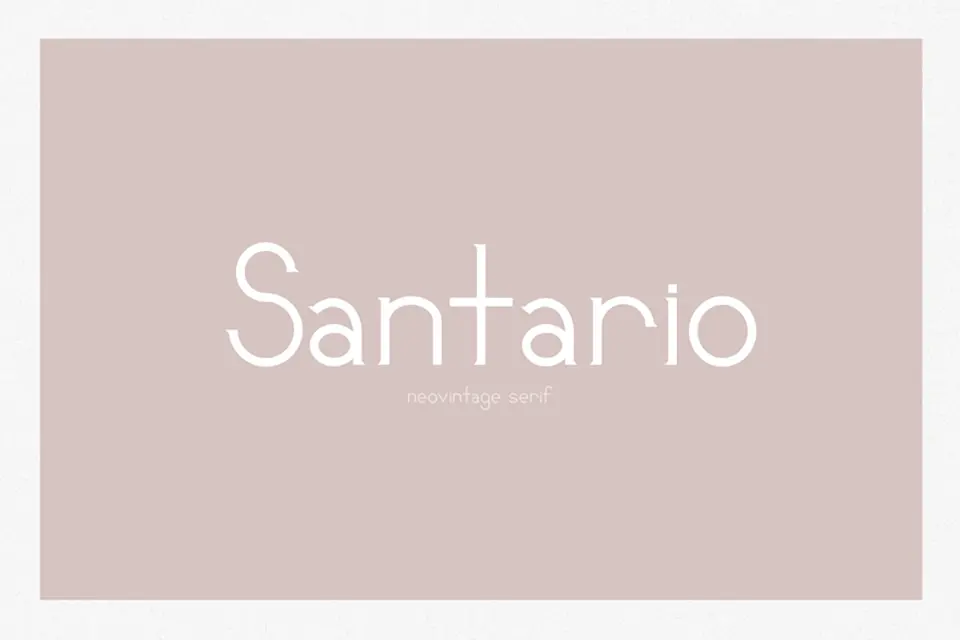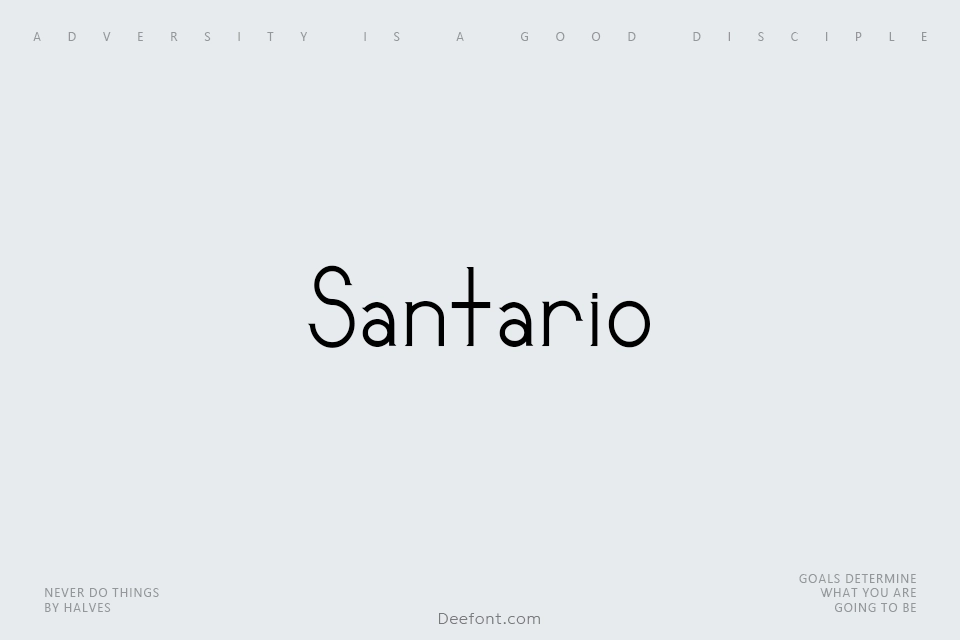
Santario Font
Santario is a neovintage serif font that combines elegant vintage aesthetics with modern design sensibilities. This versatile typeface delivers stunning visual impact across various contexts, featuring refined serifs and sophisticated letterforms. Perfect for creating timeless typography in branding, editorial design, and creative projects that require distinguished character and contemporary elegance.